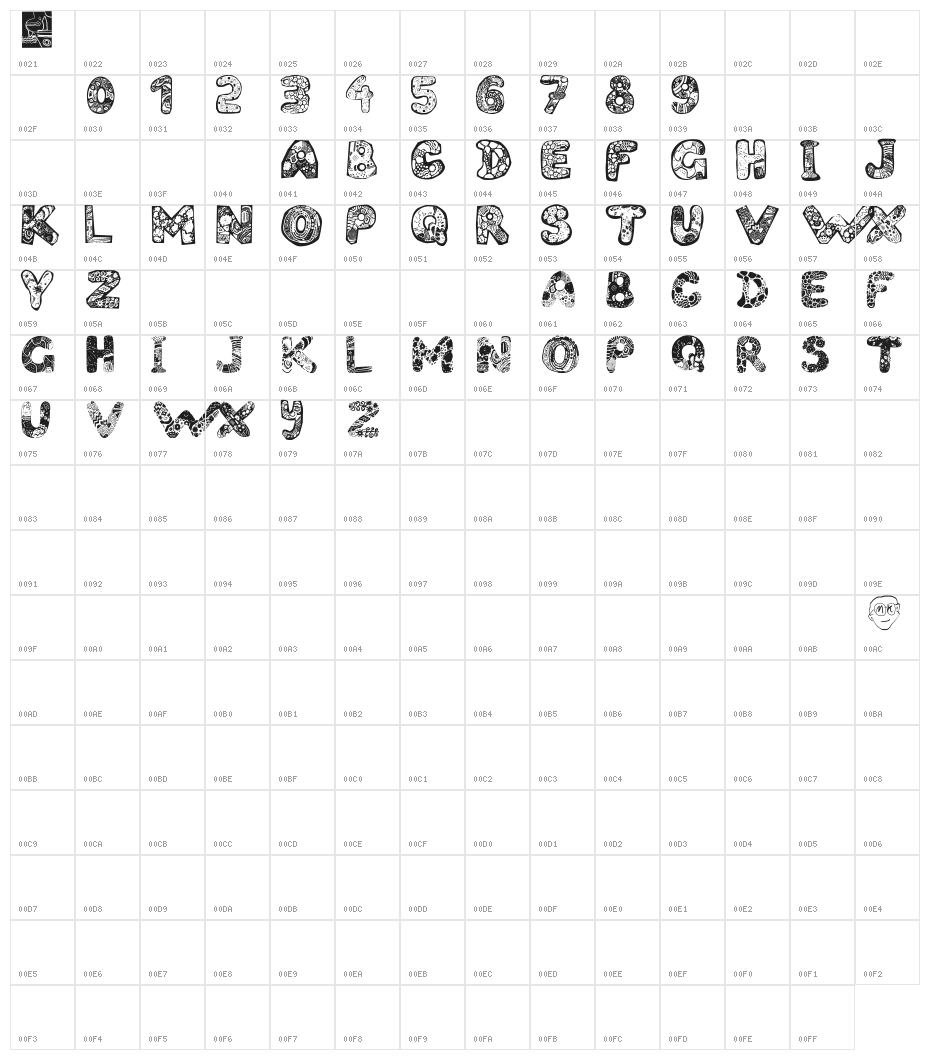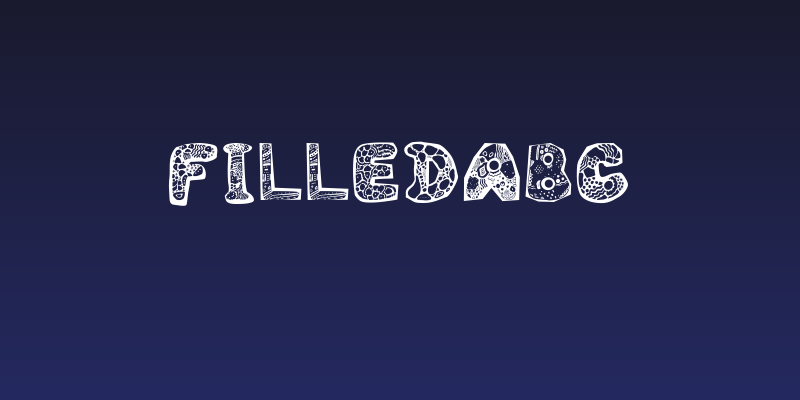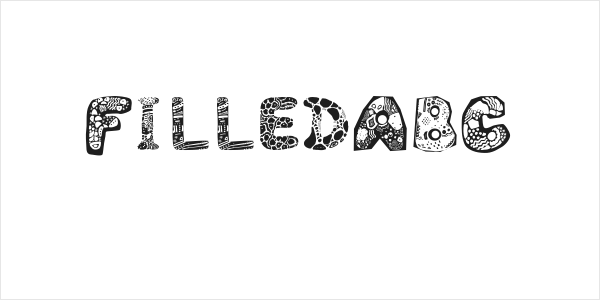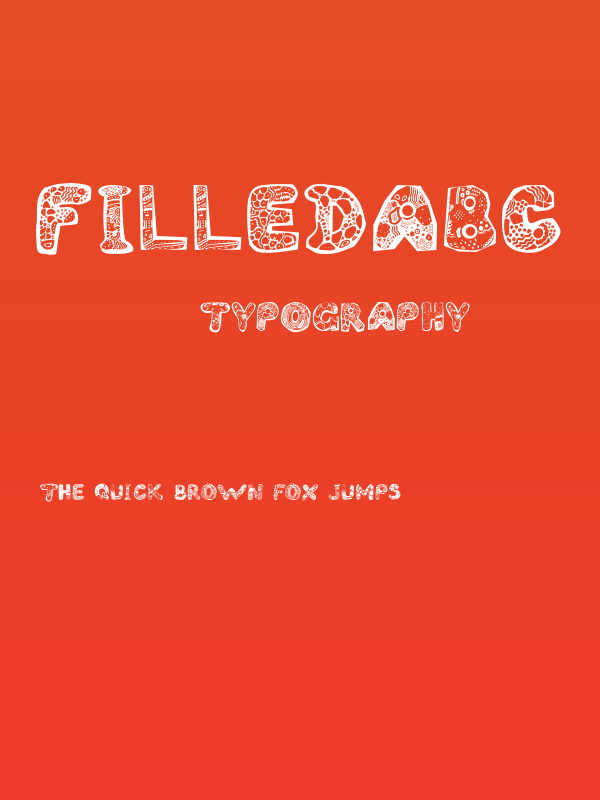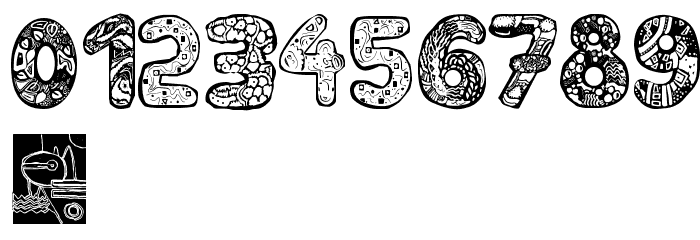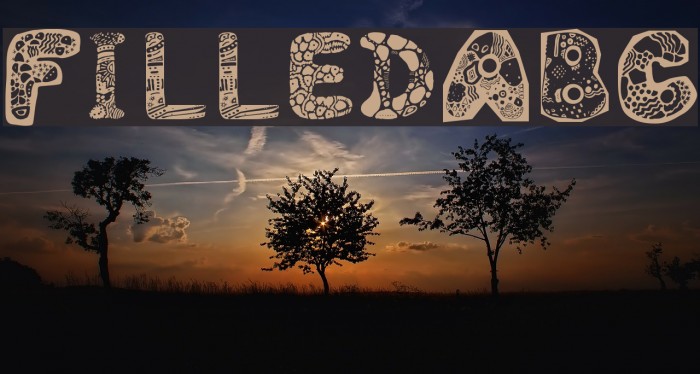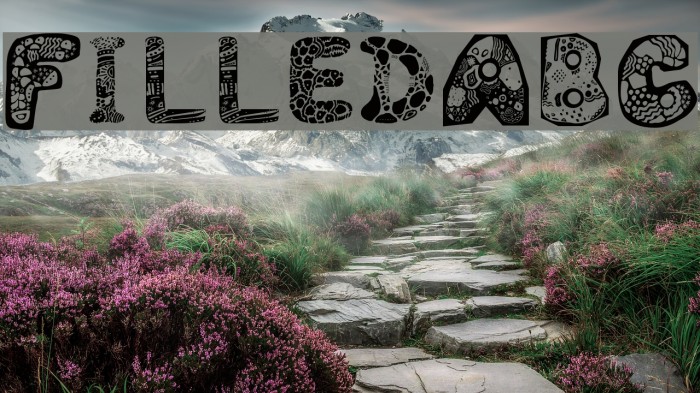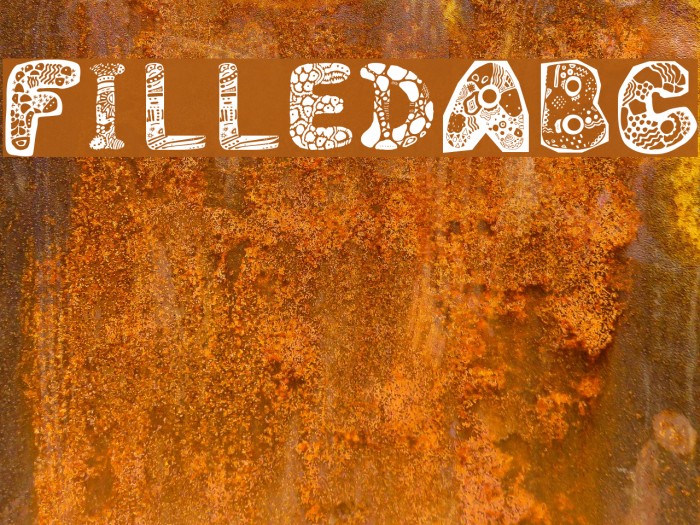
FilledABC Font
FilledABC Description
This font is a vibrant and playful decorative style, characterized by its bold, filled-in letters adorned with intricate patterns and doodles. Each character is uniquely designed with a variety of motifs, including swirls, dots, and abstract shapes, creating a lively and artistic appearance. The font maintains a consistent weight throughout, with a slightly rounded and chunky form that enhances its whimsical nature. The detailed patterns within each letter add depth and texture, making it visually captivating and ideal for creative projects. The overall style is reminiscent of hand-drawn illustrations, offering a sense of individuality and artistic flair.
| Proposed Projects | Ideal for children's books, creative posters, artistic branding, and playful invitations. |